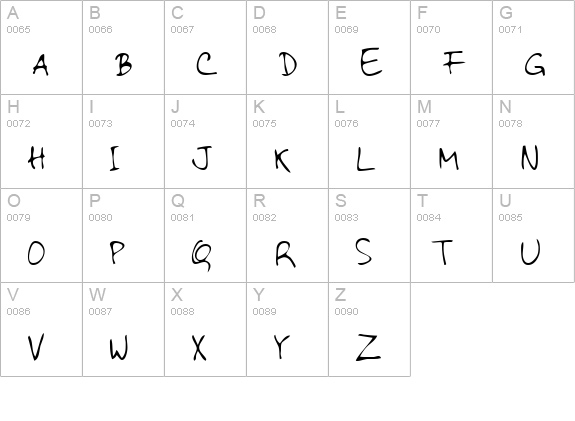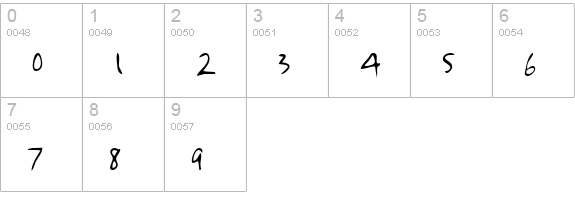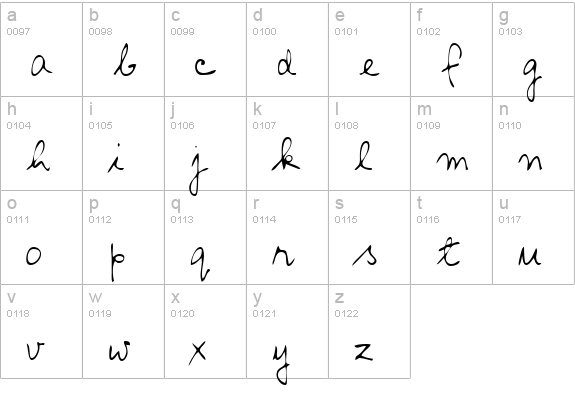
JamesHand Regular is the standard, neutral variant in the JamesHand typeface family \xE2\x80\x94 well suited to general body text, paragraphs, and standard typographic work.
JamesHand Regular font is a timeless and versatile typeface that exudes elegance and sophistication. Its clean and crisp lines make it perfect for a wide range of design projects, from invitations and logos to branding materials and advertisements. With its balanced proportions and subtle curves, JamesHand Regular font strikes the perfect balance between classic and modern design. One of the best things about JamesHand Regular font is that it is available for free! That's right, you can download this stunning font without spending a dime. Whether you are a professional designer looking to add a touch of finesse to your projects or a casual user in need of a beautiful font for personal use, JamesHand Regular font is the perfect choice. To get your hands on this amazing font, simply head over to FontsMarket.com and download it for free. FontsMarket.com is a trusted source for high-quality fonts, and JamesHand Regular font is no exception. With just a few clicks, you can have this incredible font ready to use in your next project. Don't miss out on the opportunity to enhance your designs with JamesHand Regular font. It's freely available to download at FontsMarket.com, so why wait? Grab this font now and let your creativity soar!